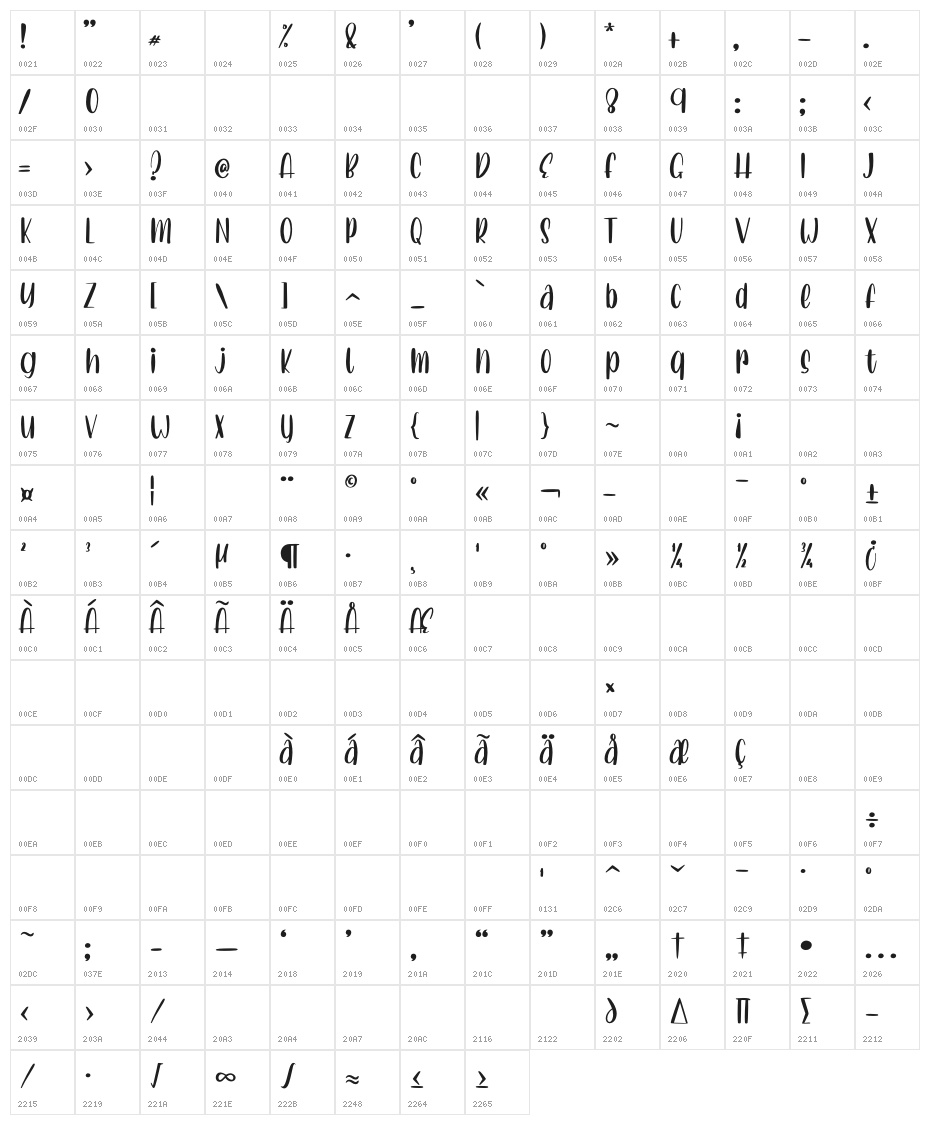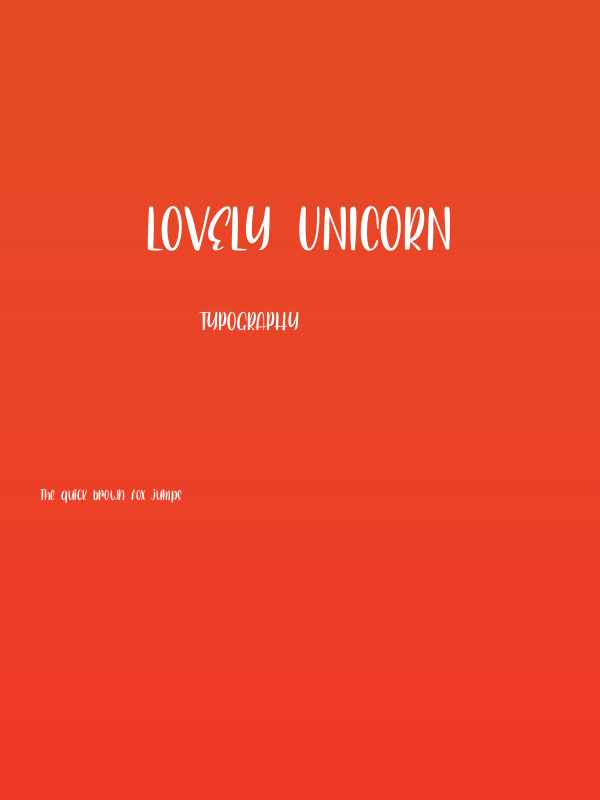
Lovely Unicorn Font
Lovely Unicorn Description
This font features a playful and whimsical style with a handwritten appearance. The letters are bold and slightly slanted, giving them a dynamic and lively feel. The strokes are thick and consistent, with rounded edges that add a friendly and approachable vibe. The uppercase and lowercase letters maintain a cohesive look, while the numerals and special characters complement the overall design. This font is perfect for projects that require a touch of creativity and fun, such as children's books, party invitations, or playful branding materials.
| Proposed Projects | Ideal for children's books, party invitations, playful branding, and creative projects. |